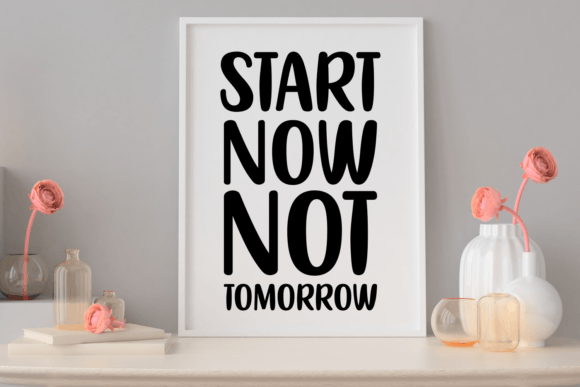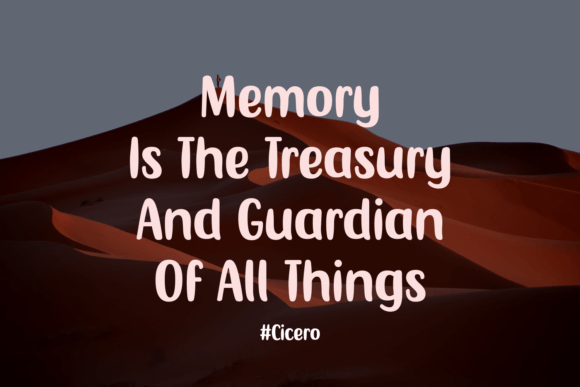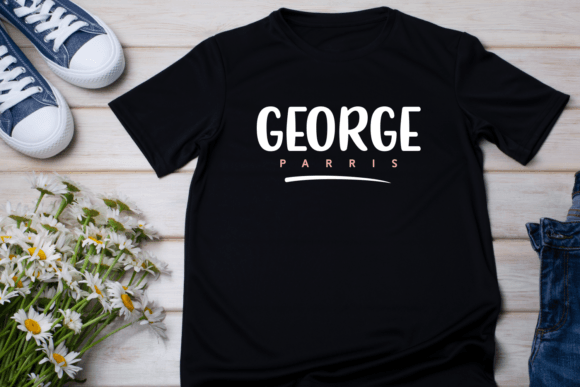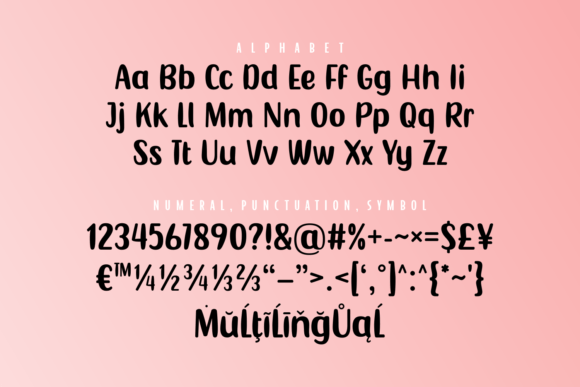
About Valley of Love Font
Valley of Love is a friendly and cute handwritten font. Full of cheer and positivity, this typeface will brighten up each of your designs.